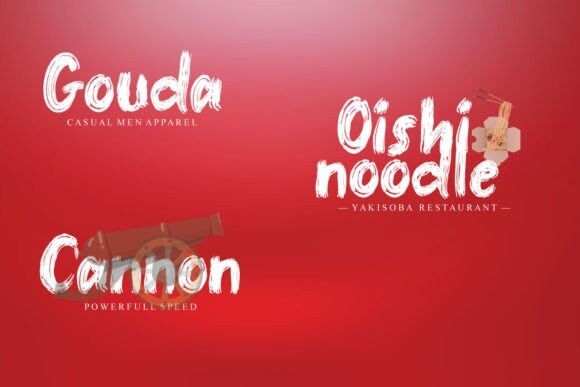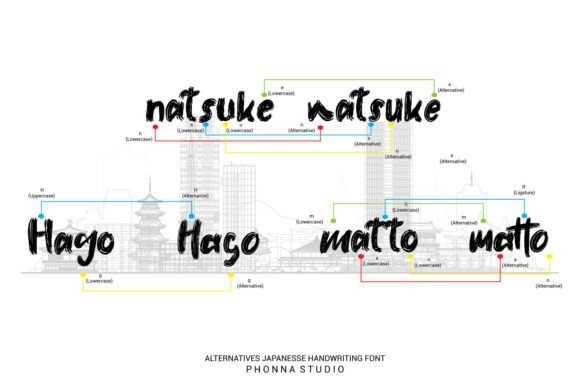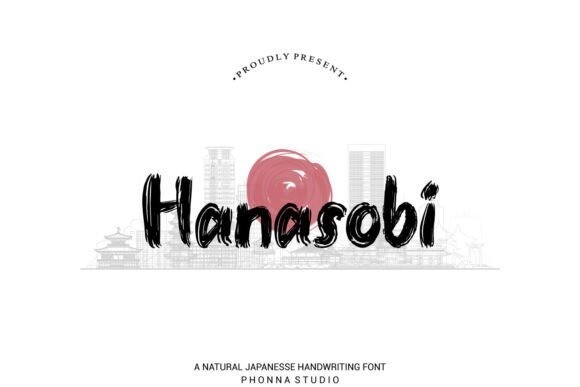
Hanasobi Font
Hanasobi Font is a Japanese bold handwritten font. it is made with the best brushes to become a true favorite. It appears wonderful, readable, and, ultimately, incredibly versatile. It is very helpful for various projects.